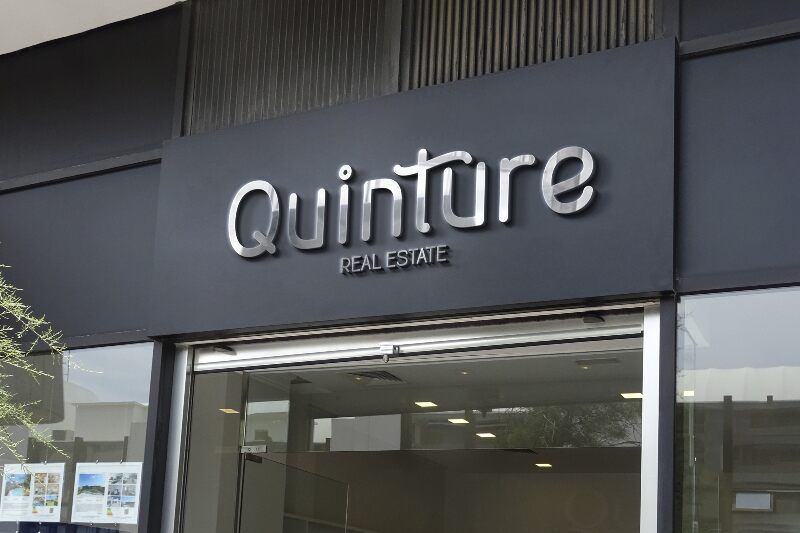
Coffee Menus font, crafted by Fontherapy | Kalifont Studio, is a charming rounded sans serif that captivates with its smooth curves and contemporary flair. This font exudes a warm and inviting vibe, perfect for creating an approachable yet modern aesthetic. Its rounded edges soften the overall look, making it ideal for projects that require a friendly and stylish touch.
This free font is well-suited for branding materials, cafe menus, and digital content where readability and charm are paramount. Download Coffee Menus to infuse your designs with a blend of elegance and approachability. Whether used in logos or promotional material, this versatile typeface enhances any project with its unique style and clarity.